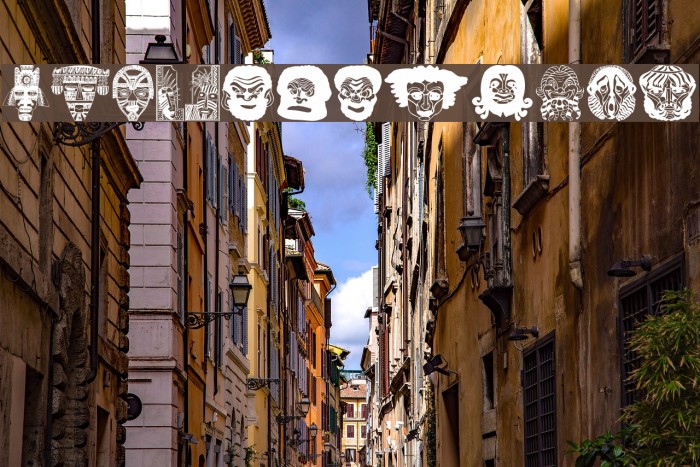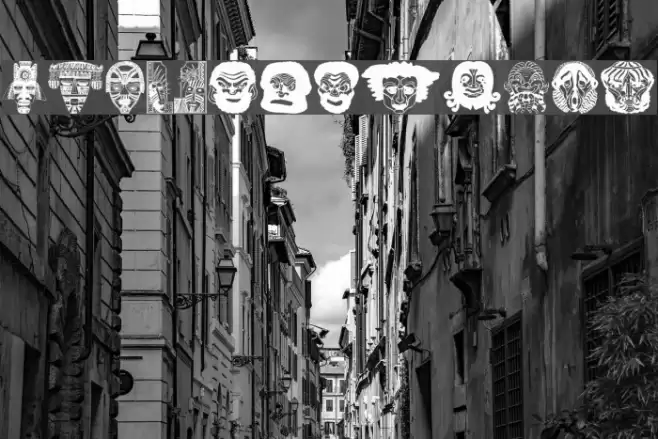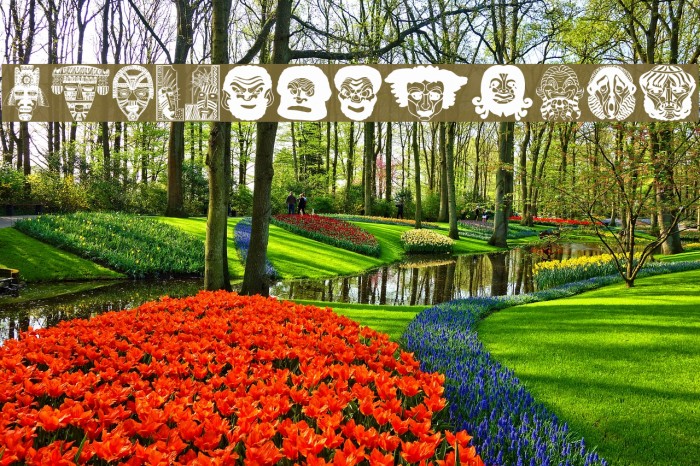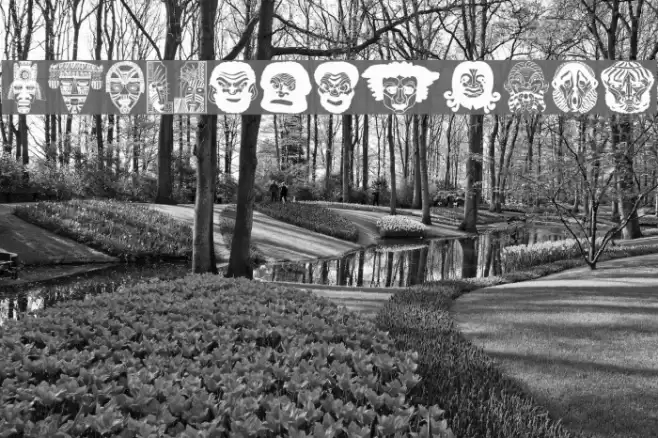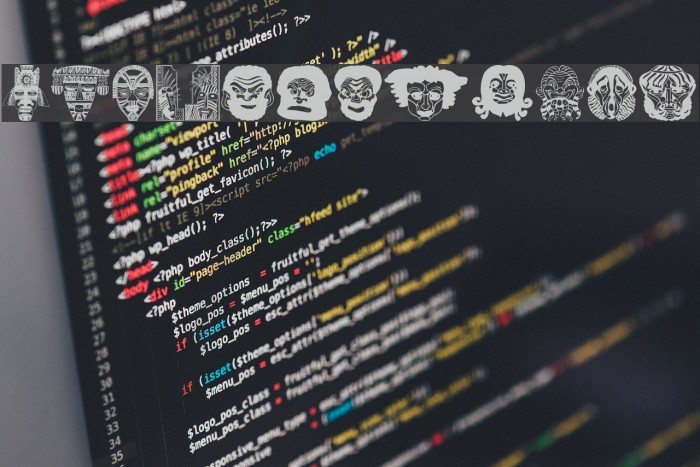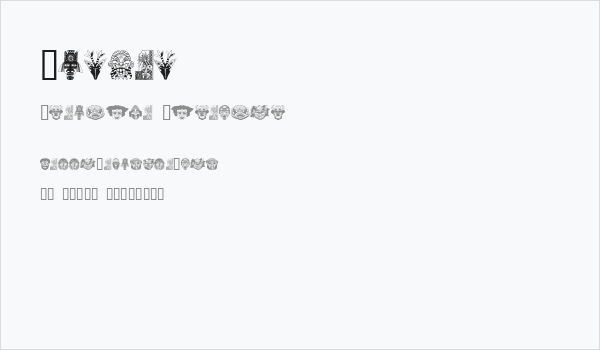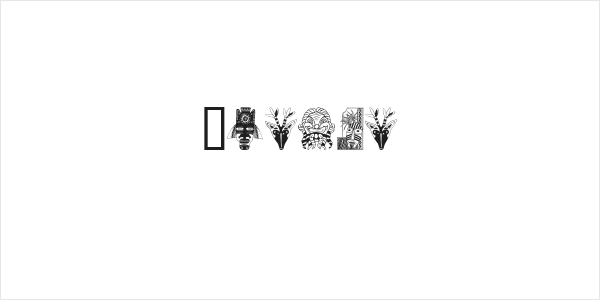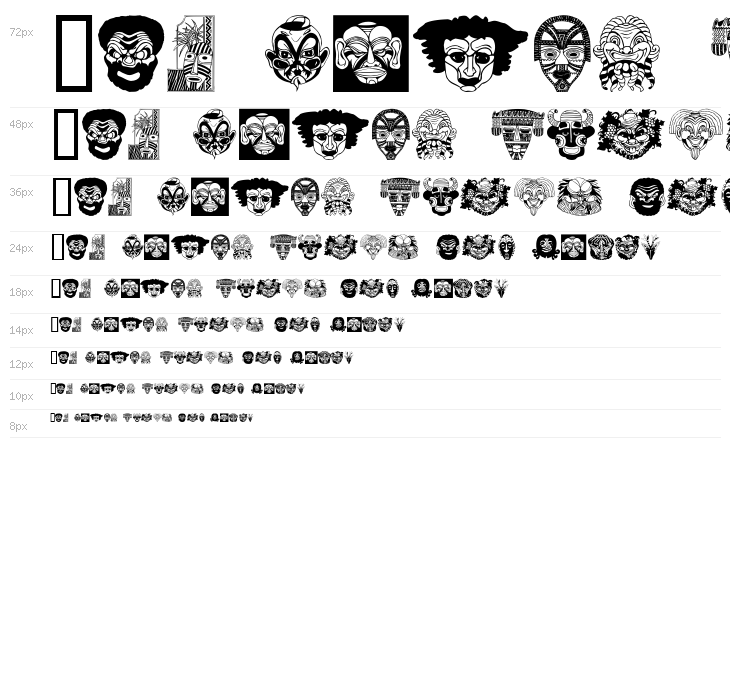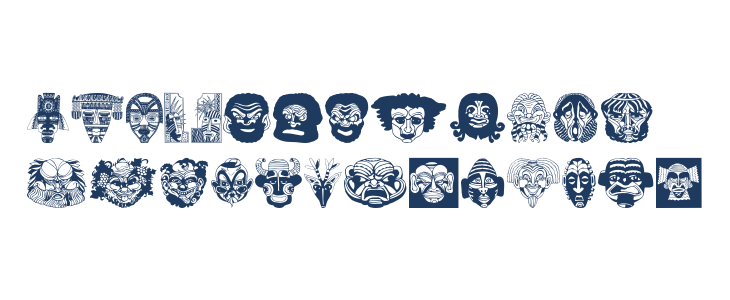
Maskes Font
Maskes Description
A decorative display font featuring a variety of intricately illustrated mask designs as glyphs, each character represented by a unique mask with bold lines and detailed patterns. The font is highly stylized and artistic, focusing on visual impact rather than legibility for standard text.
| Overall Style | Decorative, Artistic, Ethnic |
| Use Case | Logos, Headlines, Posters, Themed Graphics |
| Proposed Projects | Posters, album covers, festival branding, themed event invitations, art projects, and cultural exhibitions. |